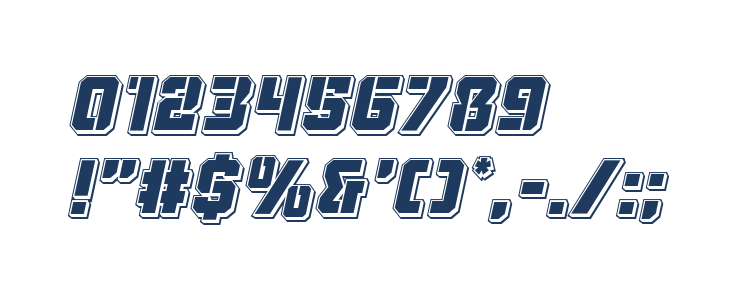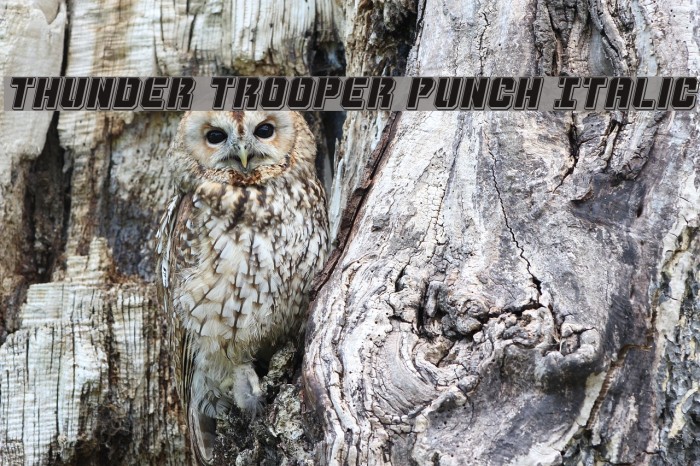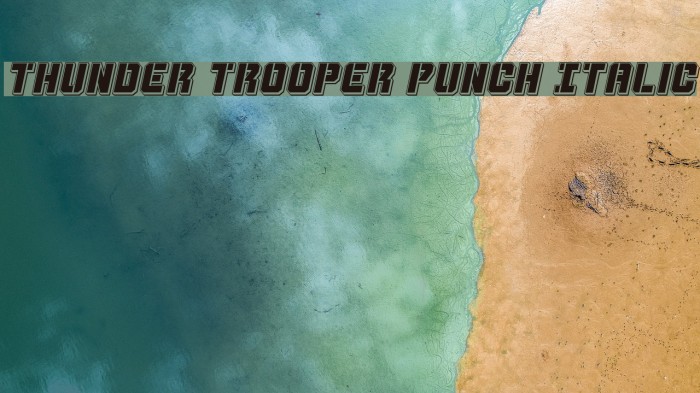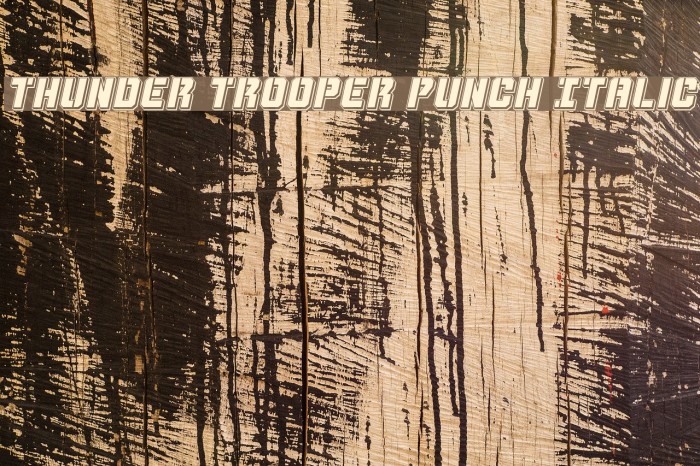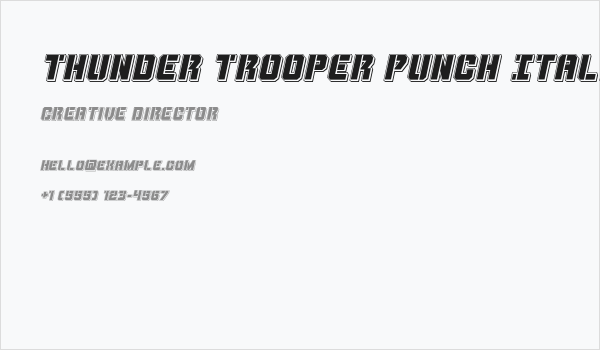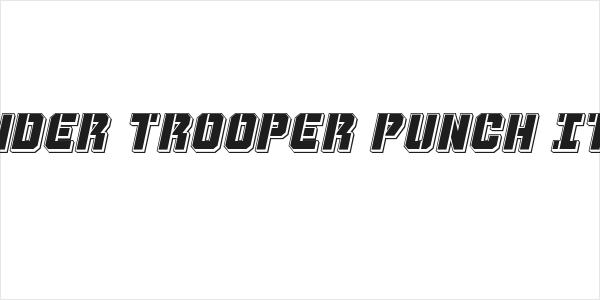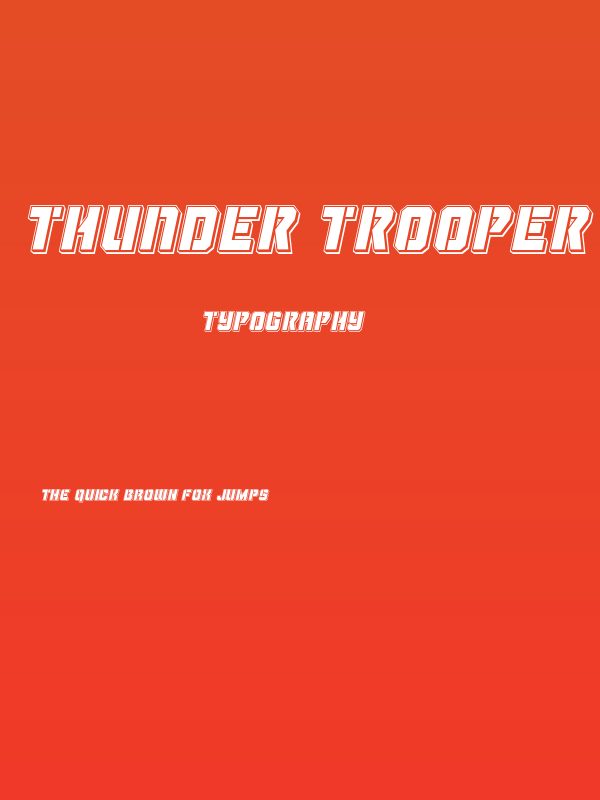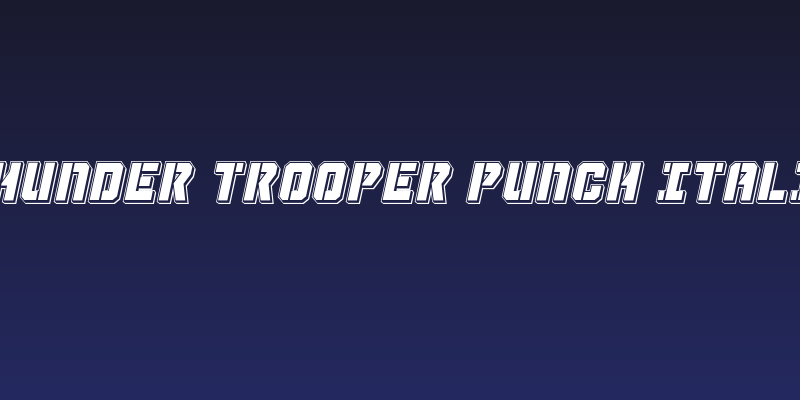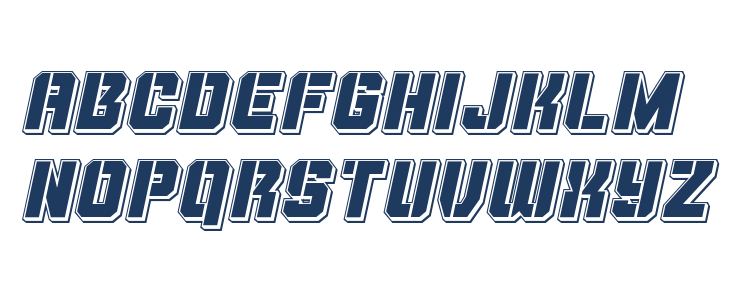
Thunder Trooper Punch Italic Font
Thunder Trooper Punch Italic Description
This font features a bold, dynamic style with a strong geometric structure. The characters are italicized, giving them a sense of motion and energy. The thick strokes are outlined with a contrasting border, enhancing their visibility and impact. The design is reminiscent of futuristic or sci-fi themes, making it ideal for projects that require a modern and edgy look. The uppercase and lowercase letters maintain a consistent style, with angular edges and a slightly condensed form. The numerals and special characters follow the same aesthetic, ensuring uniformity across all text elements.